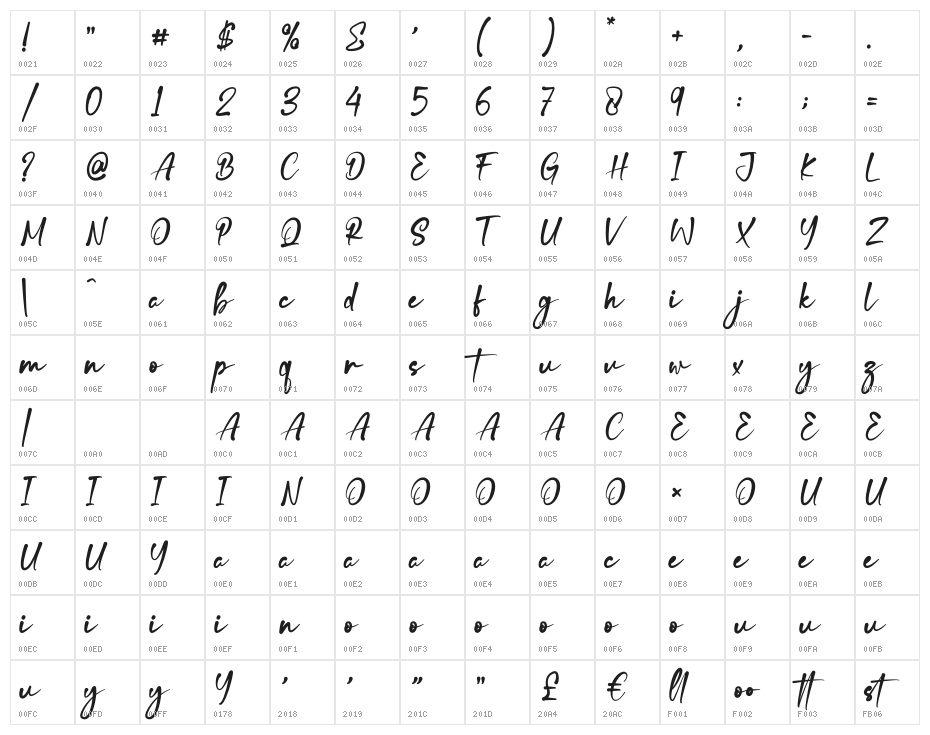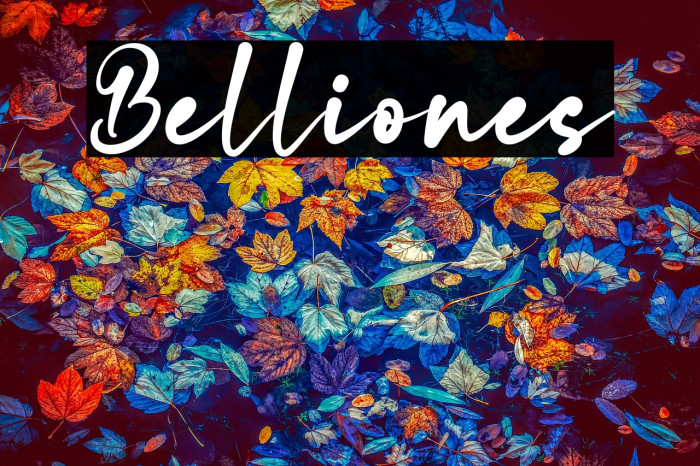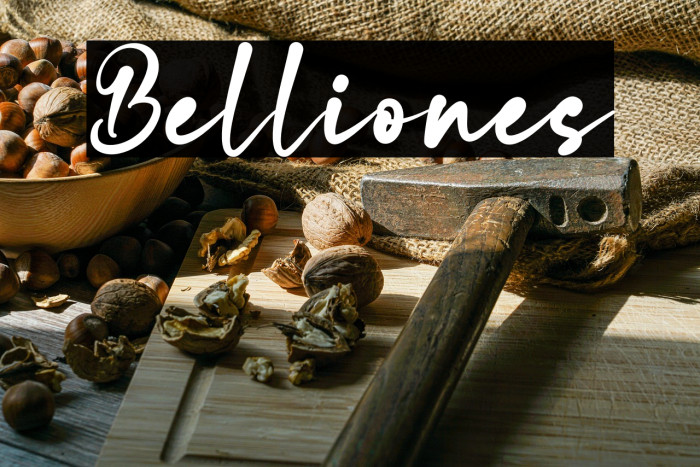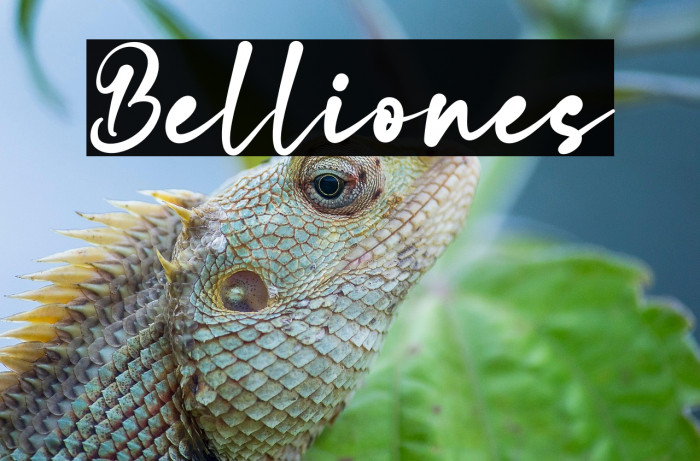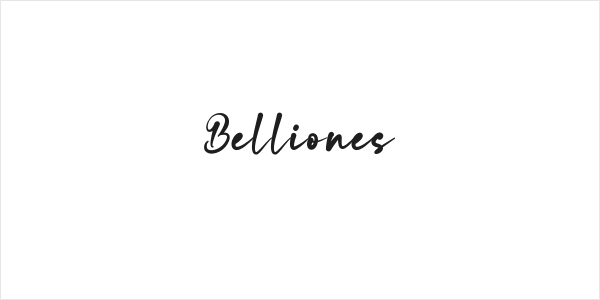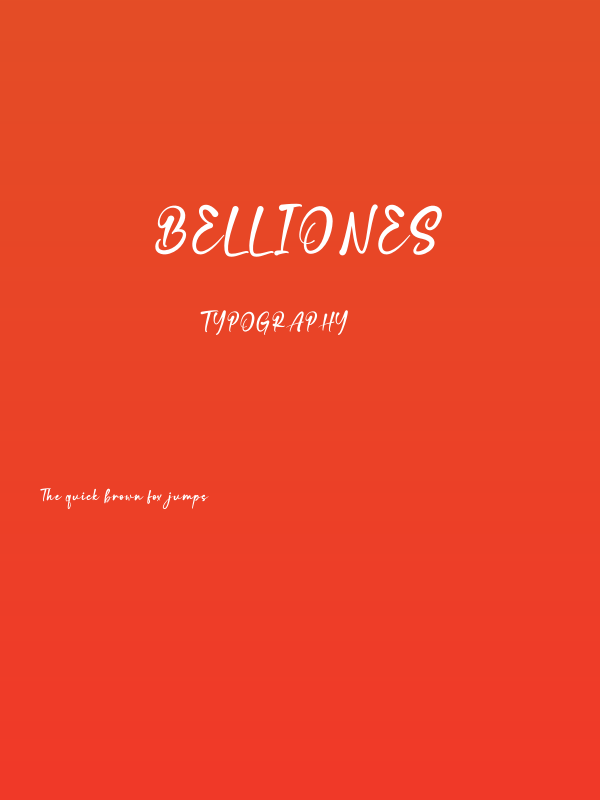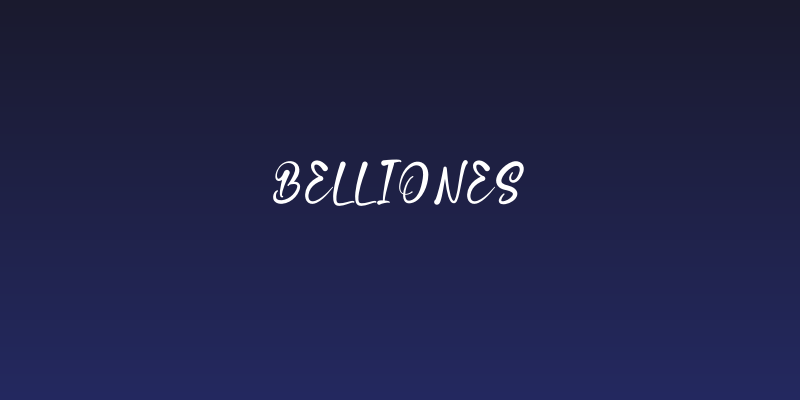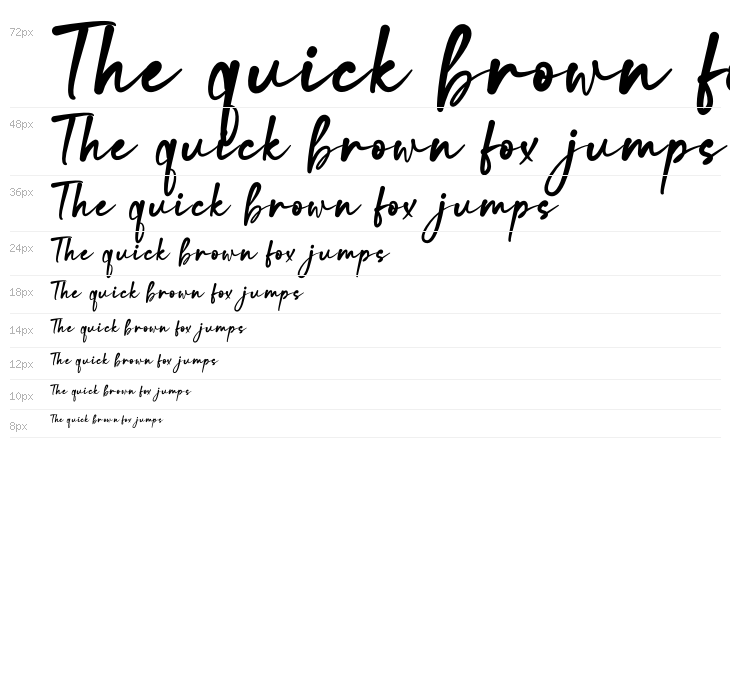
Belliones Font
Belliones Description
This font exudes a lively and dynamic script style, characterized by its fluid and cursive strokes. The uppercase letters are elegantly crafted with a slight slant, giving them a sense of motion and grace. The lowercase letters maintain a consistent flow, enhancing readability while retaining a handwritten charm. The numerals are well-balanced, complementing the overall aesthetic. Special characters are thoughtfully designed, integrating seamlessly with the rest of the set. This font's playful yet sophisticated appearance makes it versatile for various creative applications.
| Use Case | Logos, Invitations, Social Media Graphics |
| Proposed Projects | Ideal for wedding invitations, greeting cards, branding projects, and social media graphics. |